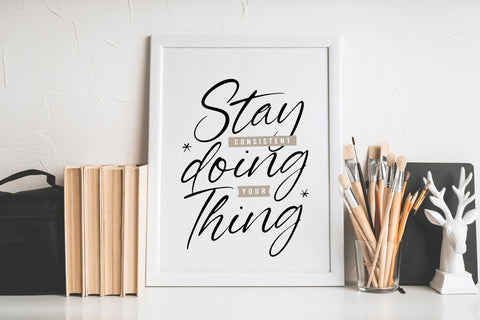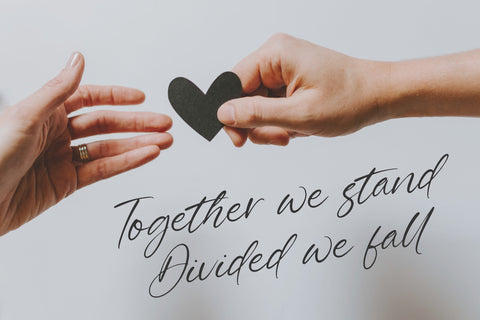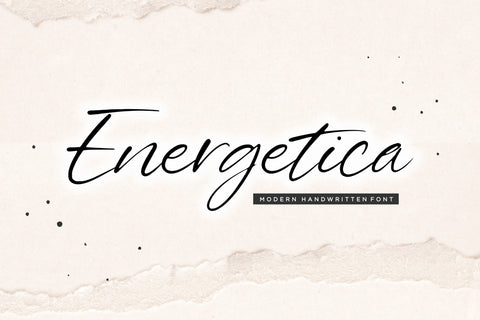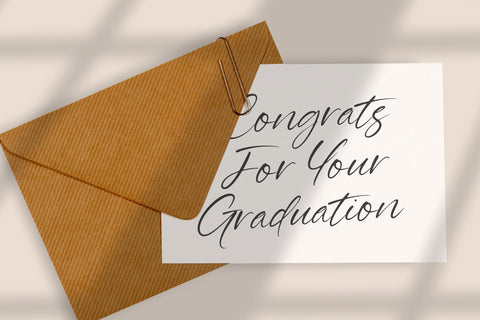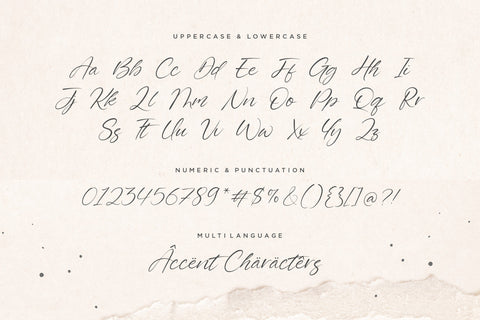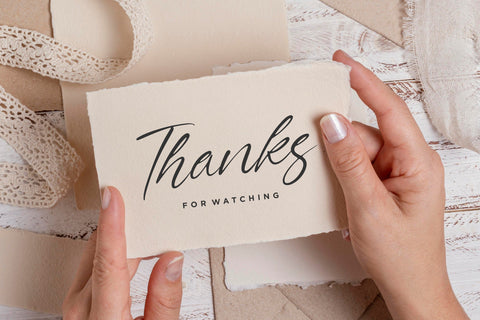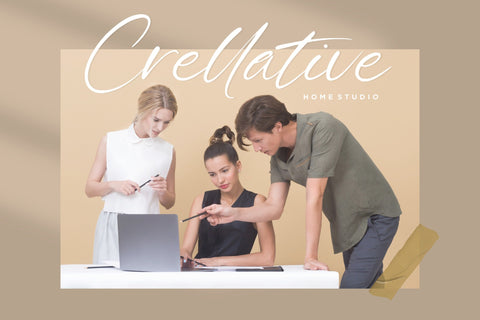
Energetica Modern Handwritten Font
Proudly Present, Energetica Font.
Energetica is a Modern Handwritten Font.
Energetica is a delicate, elegant and flowing handwritten font. It has beautiful and well balanced characters and as a result, it matches a wide pool of designs. Add it to your most creative ideas and notice how it makes them come alive!